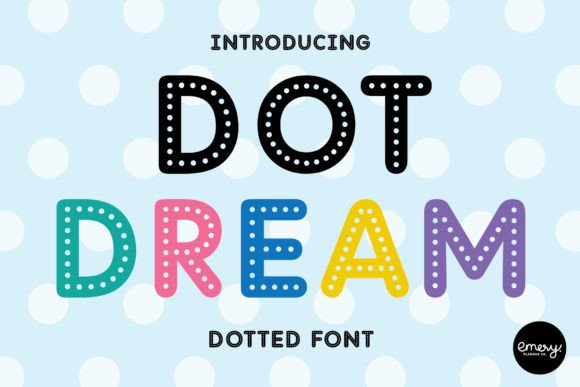
Introducing Dot Dream Font, the ultimate choice for your branding needs. Created by Emery Planner Co., this decorative font is a game-changer that will elevate your projects to new heights.
With its captivating charm and unique design, Dot Dream Font is the best font for branding, guaranteed to make a lasting impression on your audience. Its versatility knows no bounds, making it perfect for a wide range of projects.
Whether you're designing educational resources, crafting attention-grabbing headlines, creating eye-catching logos, or curating stunning labels, Dot Dream Font has got you covered. It effortlessly adds a touch of elegance and professionalism to any branding project.
But that's not all! Dot Dream Font is also your go-to choice for magazines, homeware designs, product packaging, and even personalized mugs. Its timeless appeal and distinct style will make your creations stand out from the crowd.
Imagine your favorite quotes beautifully rendered in Dot Dream Font, ready to be shared on social media or printed as stunning posters. The possibilities are endless, and the impact is undeniable.
Embrace the power of Dot Dream Font and witness the transformation of your projects. Its captivating curves and intricate details will captivate your audience, leaving a lasting impression.
Don't settle for ordinary fonts when you can have the extraordinary. Download Dot Dream Font today and unlock a world of endless creativity and visual appeal. Upgrade your designs, elevate your brand, and make a statement that resonates with your audience.
It's time to make your mark with Dot Dream Font. Get ready to create stunning visuals that leave a lasting impression. Take your projects to the next level and let your creativity soar.